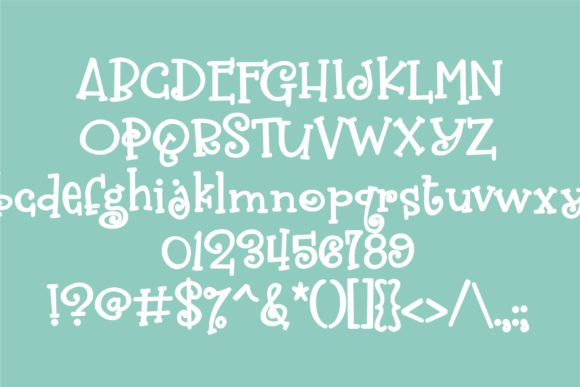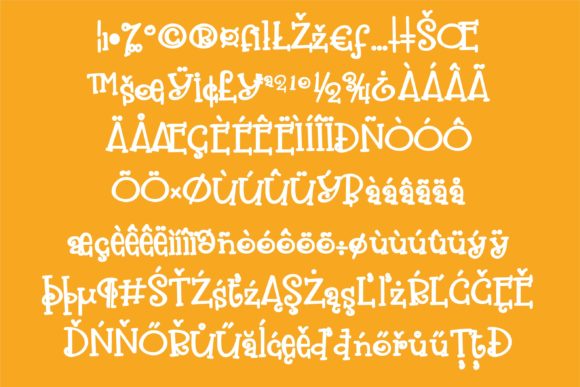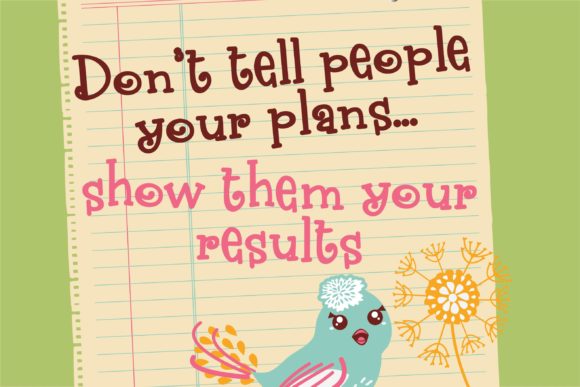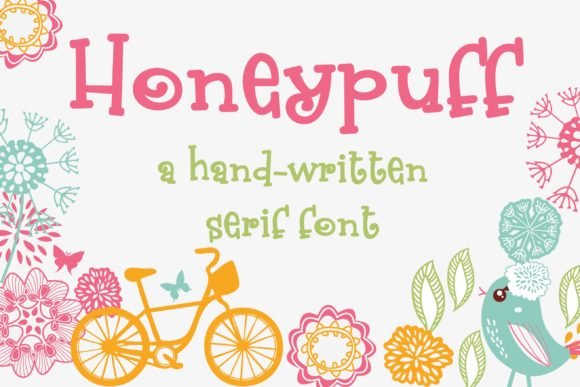
Introduction to Honeypuff Font
Honeypuff is an incredibly cute handwritten font with a unique style.
Get inspired by its lovely look .
Honeypuff Font offers exceptional quality and versatility, making it a valuable addition to your design toolkit. Whether you’re creating for personal projects or commercial use, Honeypuff Font delivers professional results.